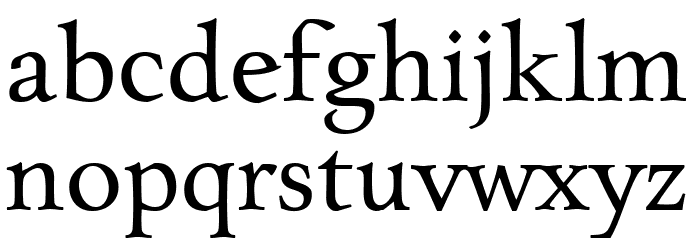
Charpentier Renaissance Reduced Normal Font
Charpentier Renaissance Reduced Normal Description
This font embodies a classic and elegant style reminiscent of Renaissance calligraphy. The characters feature a distinct serif with a slight curve, giving them a sophisticated and timeless appearance. The uppercase letters are bold and commanding, while the lowercase letters maintain a harmonious balance with their slightly narrower form. The overall design is characterized by moderate contrast between thick and thin strokes, enhancing readability while preserving an artistic flair. The font's structure is well-suited for formal and historical contexts, offering a sense of tradition and refinement.
| Proposed Projects | Ideal for use in historical documents, formal invitations, book titles, and branding that requires a touch of sophistication. |